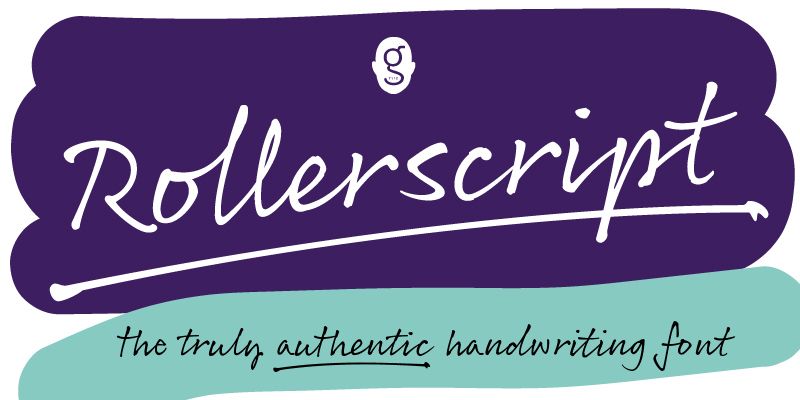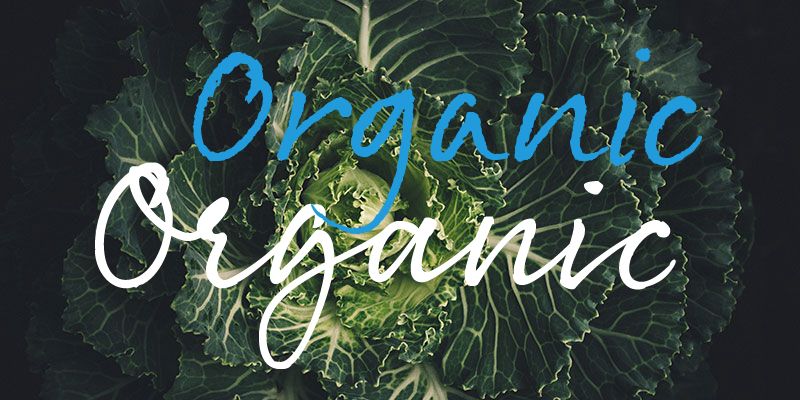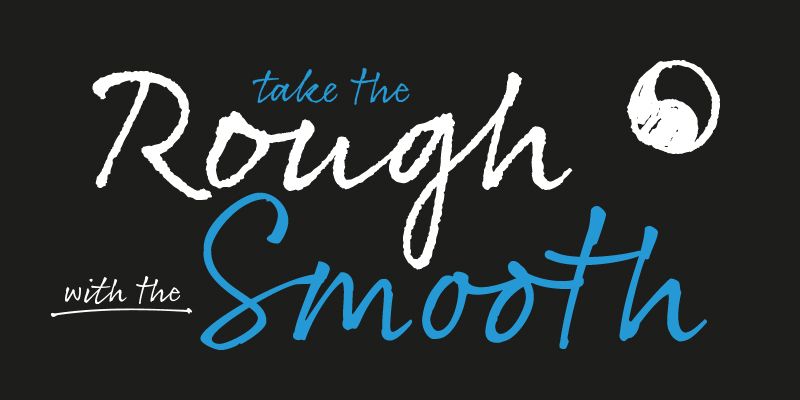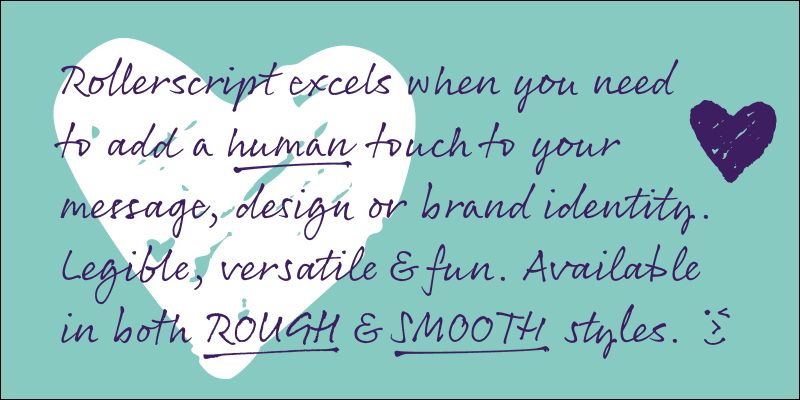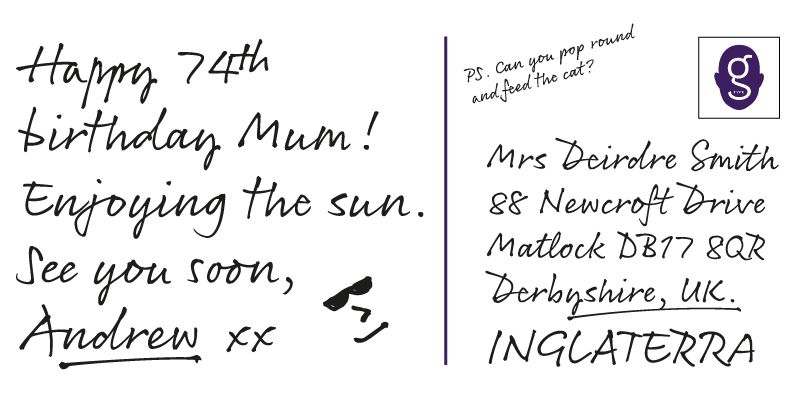
Rollerscript excels when you need to add a human touch to your message, design or brand identity. A casual, informal handwriting font created with a roller pen it is legible, authentic, versatile and fun.